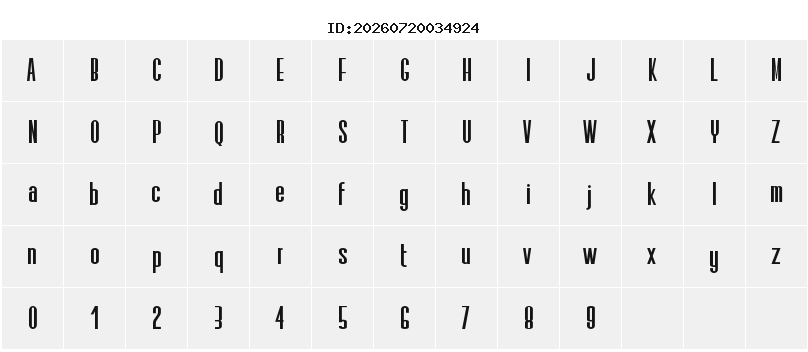
Elis Preview
• Font Name: Elis
• Full Font Name: Elis
• Version: Version 1.00 May 6, 2015, initial release
• Character Count: 423
About Elis.ttf
Elis.ttf is a modern, elegant sans-serif font designed for ultimate readability and visual harmony. Perfect for branding, headlines, web design, and print materials.